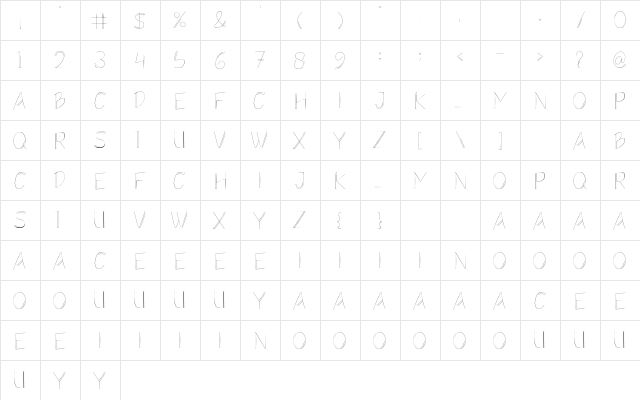
Monolism Light Regular
| Foundry | GilzType |
| Designer | GilzType |
Design Context for Monolism Light Typeface
Monolism Light brings the precise, column-aligned rhythm of monospaced typography to designs that value technical clarity and systematic order. The delicate stroke weight brings airiness and refinement to layouts.
Pro Tip: Pair Monolism Light with a proportional sans for UI contexts where code-style labels and regular body copy need to coexist.